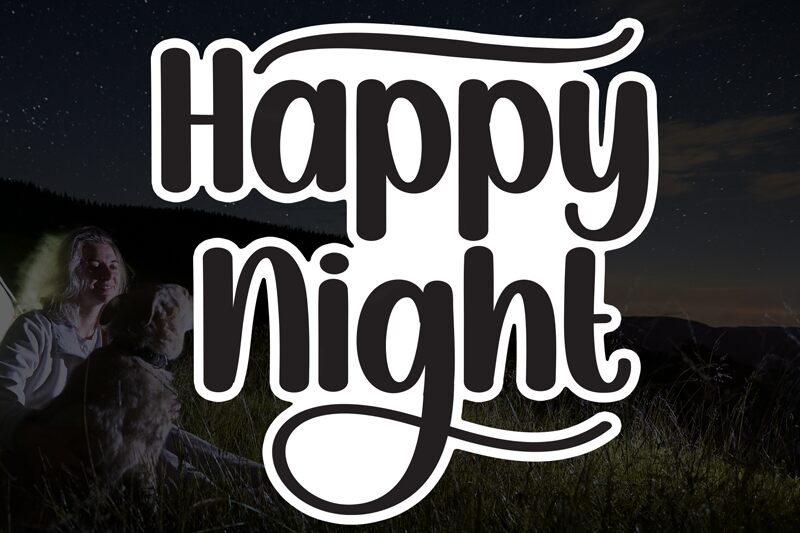
Happy Night font designed by Scratchones is a script font with an informal look. The letter design is unique with vivid letter strokes and a rounded style. It flows naturally on both short and long texts with clear and readable words. The all-around contemporary feel makes Happy Night suitable for modern design applications.
The font on online and print design communicates a friendly, casual, inviting, and approachable feel. Try it on branding, signage, advertisements, infographics, packaging, and invitations among others. It fits well on magazine covers, headlines, posters, social media posts, business cards, blogs, titles, etc.